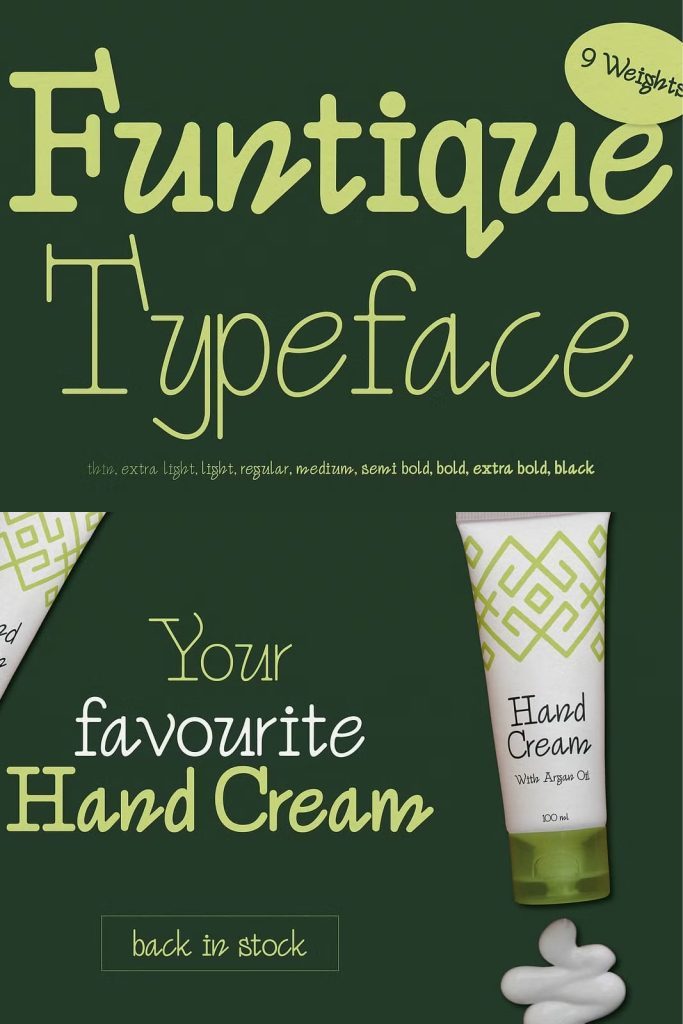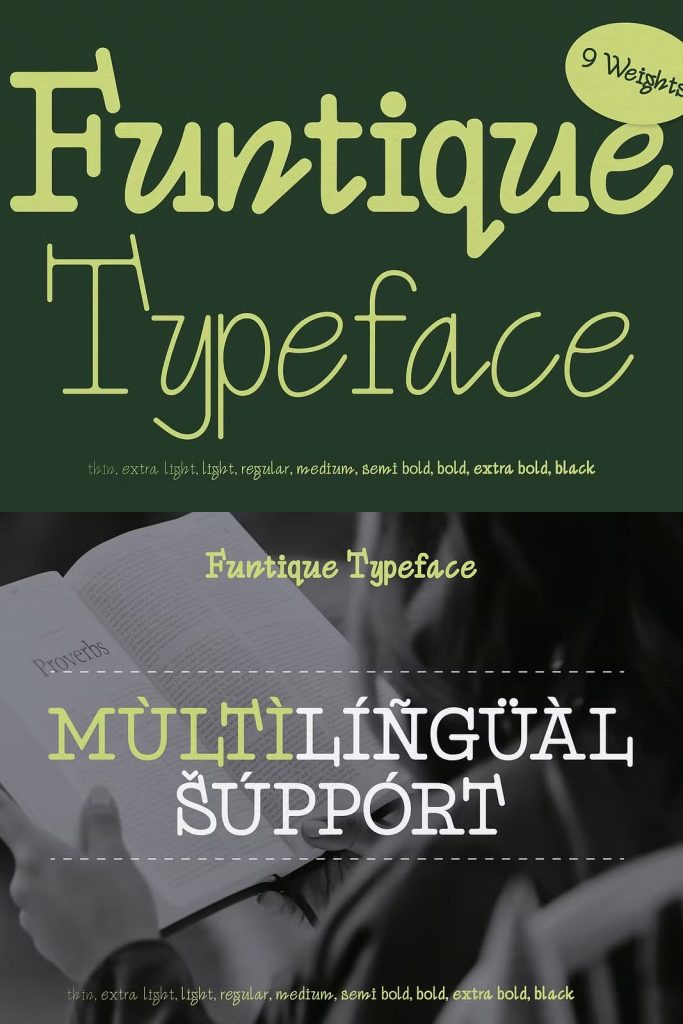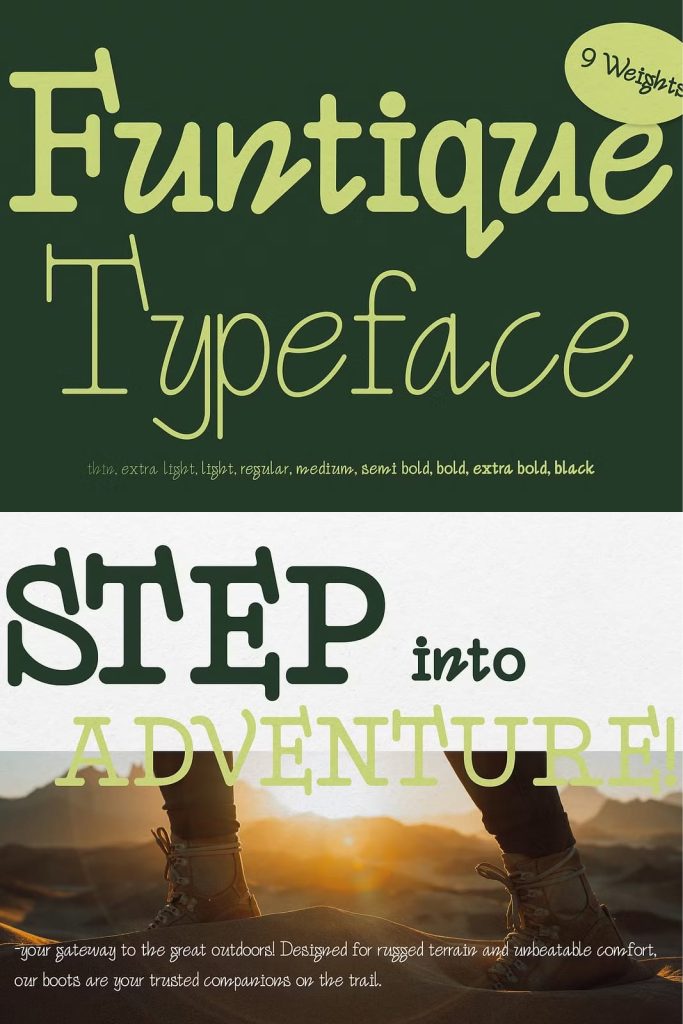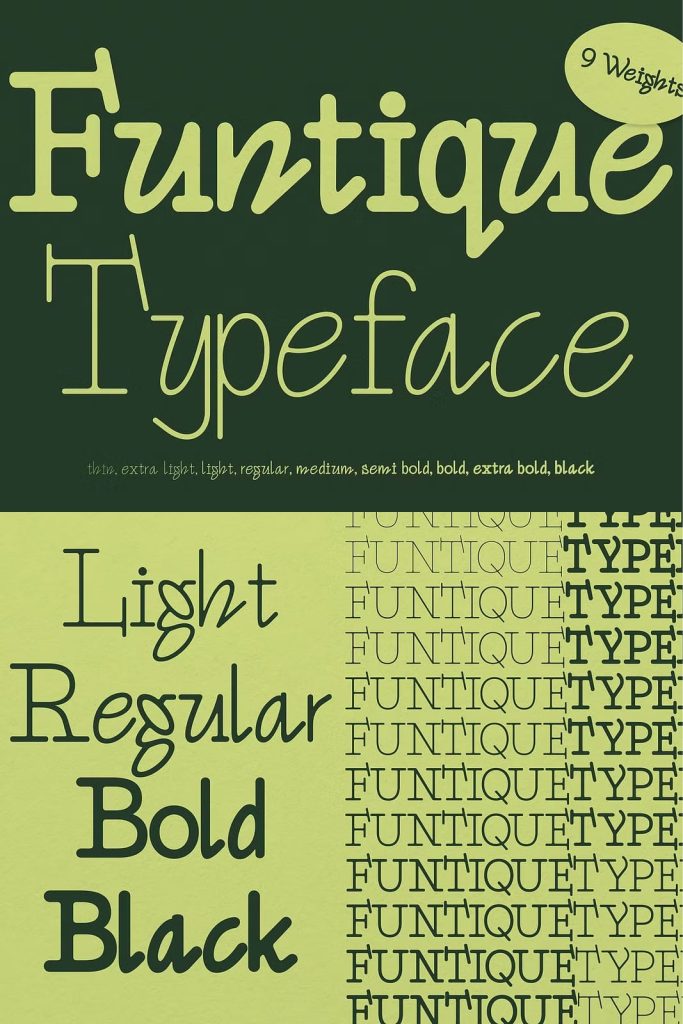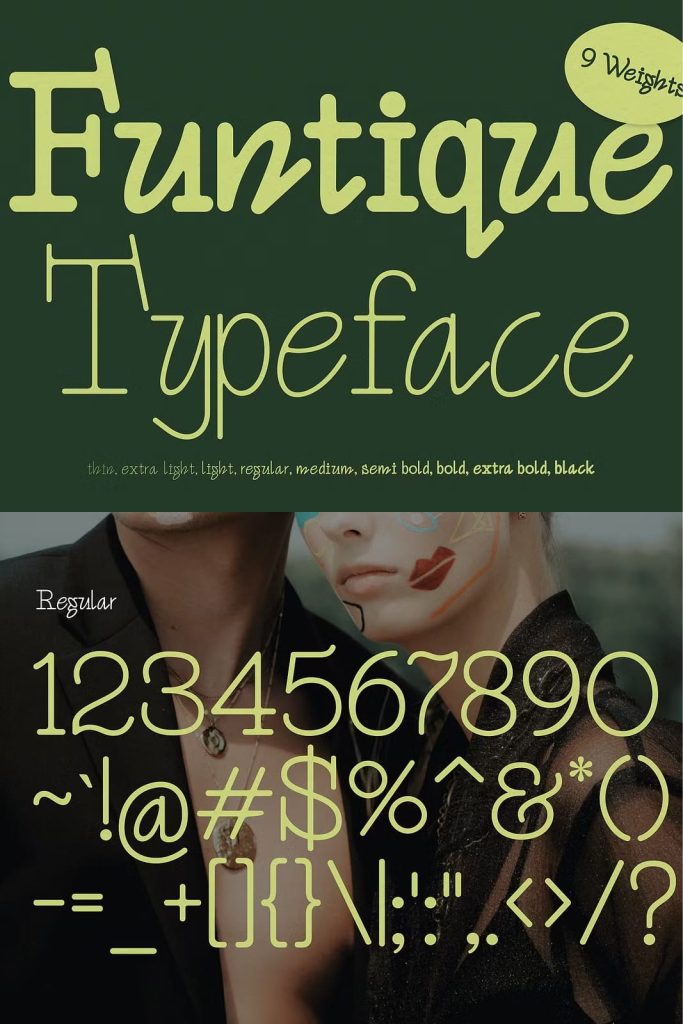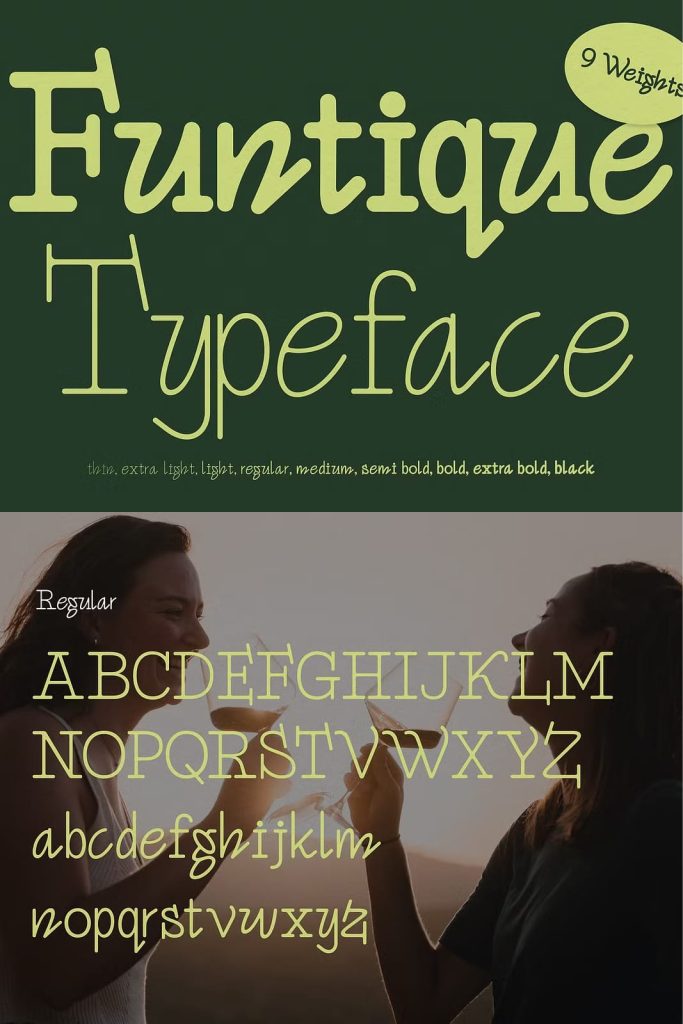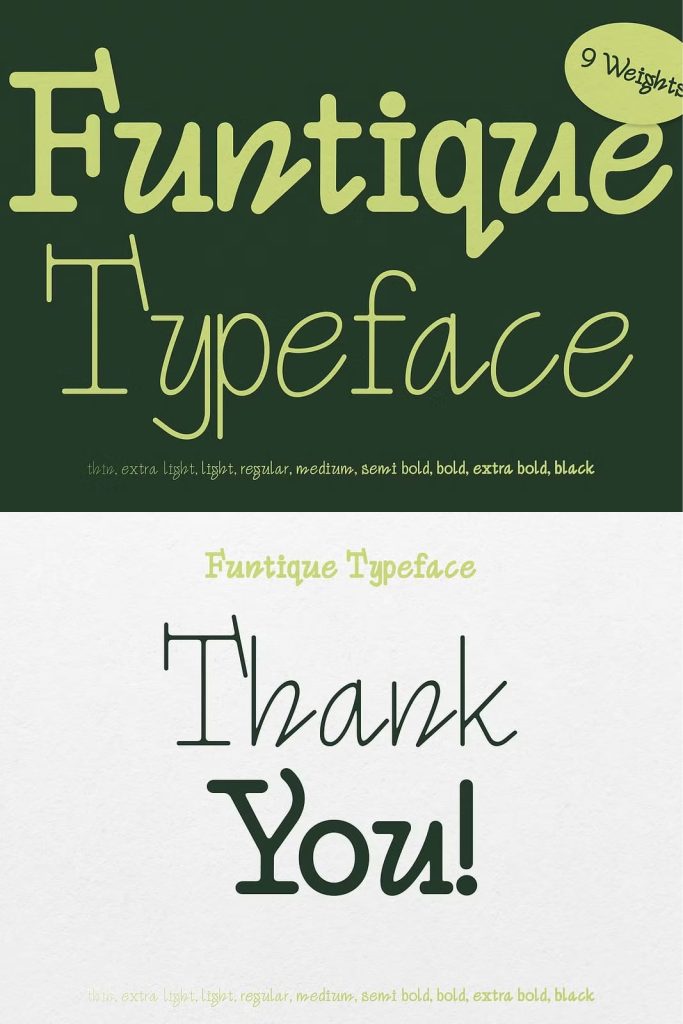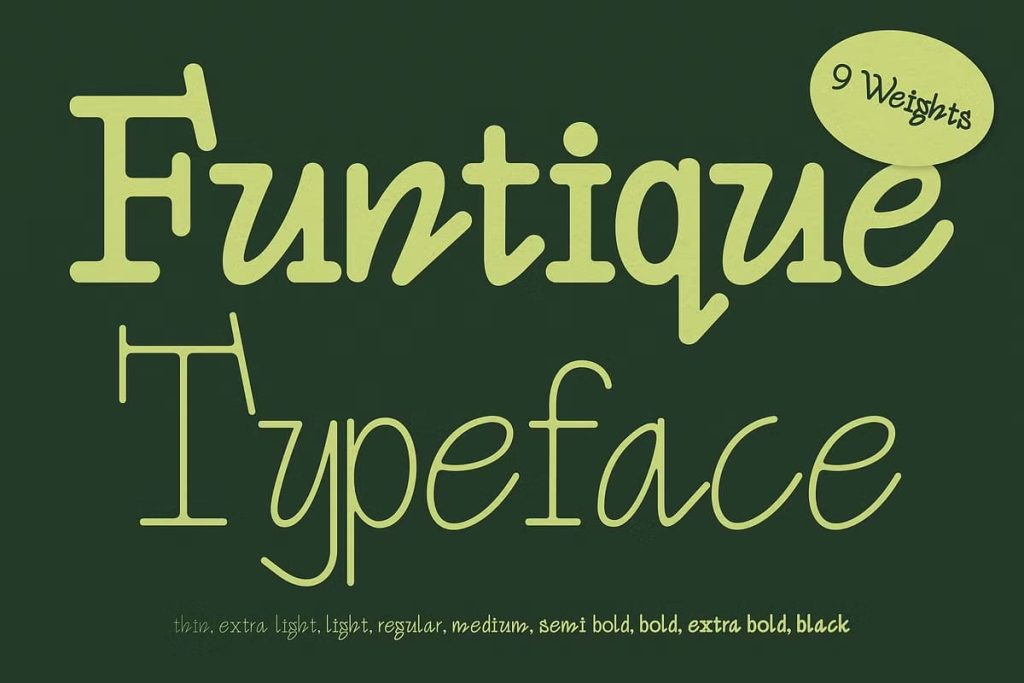
Funtique – Unique Serif Typeface
Introducing Funqtique, a dazzling modern serif typeface that blends classic elegance with contemporary flair. This versatile font is a masterpiece of design, offering a harmonious balance between the timeless appeal of serif fonts and the clean,
sleek lines of modern aesthetics. With over nine distinct weights, Funqtique provides an exceptional range of options, from the ultra-light and airy to the bold and commanding. Its beautiful, well-crafted characters are designed to bring a touch of sophistication to any project.